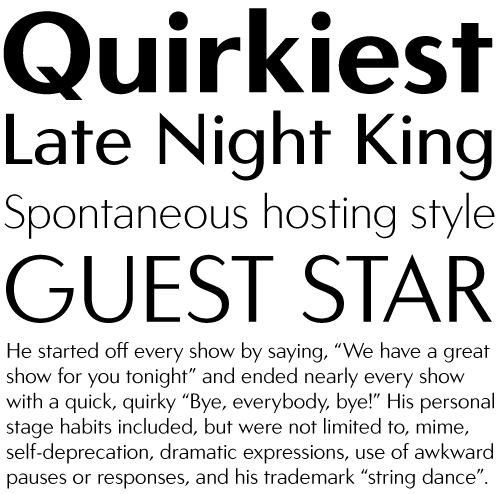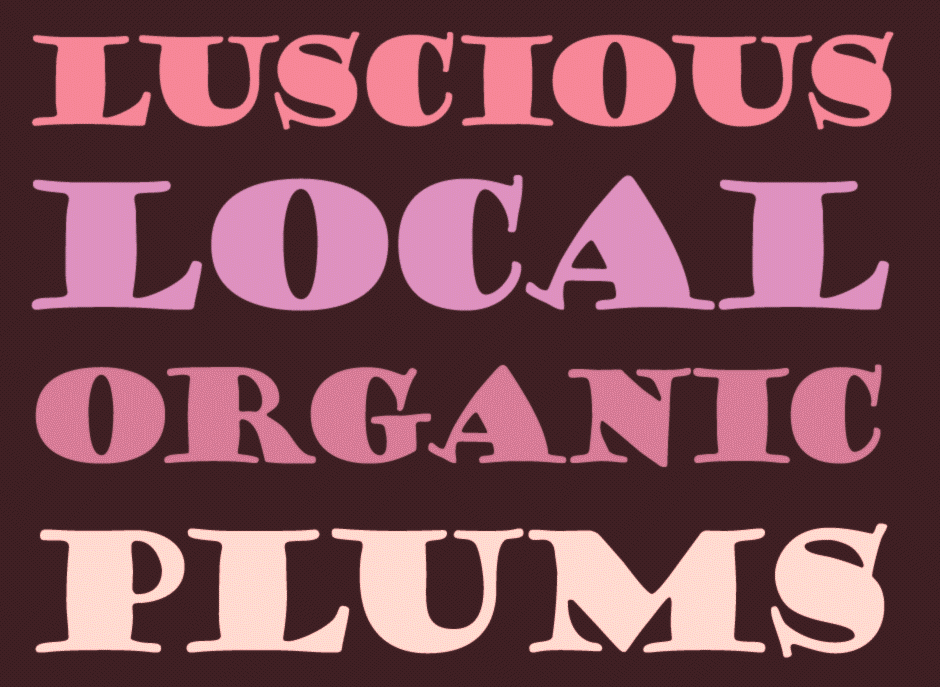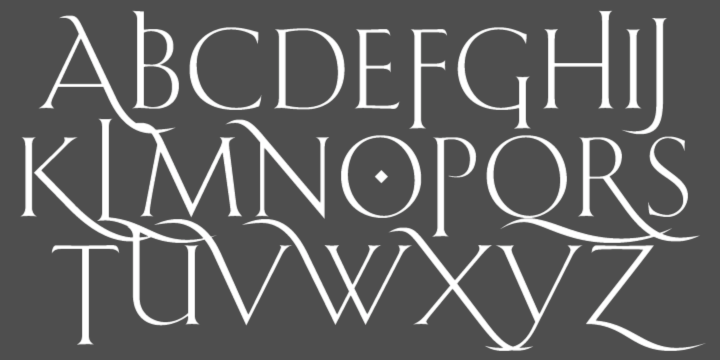
Castle Type [Jason Castle]
Designs by Jason Castle from San Rafael, CA, who studied psychology at Dominican University of California. He does custom font design and sells commercial typefaces through MyFonts and FontShop. Blog. These include:
• A: AfrikaBorders, Afrika Motifs, Agency Open (M. F. Benton, 1934, revival Jason Castle), Agency Gothic Inline, Ampersands, Azbuka (2005, a heavy slab serif).
• B: Brasileiro (2007, an art deco face).
• Carisma (2007, a clean geometric sans), Carlos (art deco inspired by Elektra), Castle Fleurons, Chinoise (2008, based on hand lettering that is reminiscent of a style of ancient Chinese square-cut ideograms), Cloister Black, Copperplate Script, Cradley (2015, a Caslon titling family with Greek and Cyrillic, named after the birthplace of William Caslon).
• D: Deko Initials (1993, discontinued in 2007; based on NADA0 drawn in 1972 by Marcia Loeb), Dionisio (2008, didone).
• E: Eden (Bold, Light; originally designed by Robert H. Middleton in 1934).
• F: Fat Freddie, Futura CT and Futura CT Inline (2007, based on Futura ND, but discontinued after only a few weeks).
• G: Goudy Lombardy (Lombardic), GoudyStout, Goudy Text, Goudy Trajan (1994-2010, free; +alternates).
• H: Handsome (2002, nice finger dingbats, aka fists).
• J: Jensen Arabique (left field art deco, based on work of Gustav Jensen, 1933).
• K: Koloss (art deco).
• L: Latin CT (2008, 6 styles), Latin Wide, Laureat, Lise Informal (2008, hand-printed), Lombardy.
• M: Maximilian CS (Rudolf Koch, 1917), Metropolis Bold and Shaded (based on the 1932 Stempel cut as designed by W. Schwerdtner), Minotaur (2008, an original monoline design based on an Oscan votive inscription from the second century BC; looks like simulated Greek).
• N: Norberto (2009, an all-caps Bodoni; +Stencil).
• O: Ogun (2008, inspired by an Egyptian-style Russian block alphabet and useful for athletic lettering; formerly named Azbuka).
• P: Plantain (2002, a digital version of Plantin Adweight, a 1913 typeface by F. H. Pierpont), Plantain Stencil (2009), Progreso (2010, a condensed, unicase, serif gothic type design inspired by the hand-lettering on Russian posters from the 1920s).
• R: Radiant, Radiant Extra Condensed CT (both Radiants are revivals of Roger Middleton's typeface by that name, 1940), Ransahoff (2002, ultra condensed didone), Rudolf (1992, based on Rudolf Koch's German expressionist work such as Neuland).
• S: Samira (2008, art nouveau style; based on Peter Schnorr's Schnorr Gestreckt, from 1898), Shango (1993, based on Schneidler Initials by F.H.E. Schneidler (1936), and including a digital version of Schneidler Cyrillic (1992); extended in 2007 to Shango Gothic and in 2008 to a 3-d shadow version, Shango Chiseled, and in 2009 to Shango Sans), Sculptura (2005, an all caps typeface based on Diethelm's Sculptura from 1957), Sencia (2008, based on Spanish art deco stock certificate lettering from 1941), Sonrisa (2009, art deco family---Sonrisa Thin is free), Standard CT (a neo-grotesque family), Standard CT Stencil (2012: free).
• Tambor (Light, Black, Inline, Adornado) (1992) (note: Jason claims that it was remotely based on Rudolf, which in turn was based on calligraphy of Rudolf Koch), Trio (an art deco sansserif), Trooper Roman (discontinued).
• V: Vincenzo (2008, a slabby didone), Warrior (2009, a 3d font based on Ogun; +Shaded).
• X: Xavier (art deco family based on Ashley Crawford by Ashley Havinden, 1930, revival by Jason Castle in 1992).
• Z: Zagora, Zamenhof (2011: an all caps poster face with constructivist ancestry, named after the inventor of Esperanto), Zuboni Stencil (2009, Latin and Cyrillic, constructivist and perhaps even military).